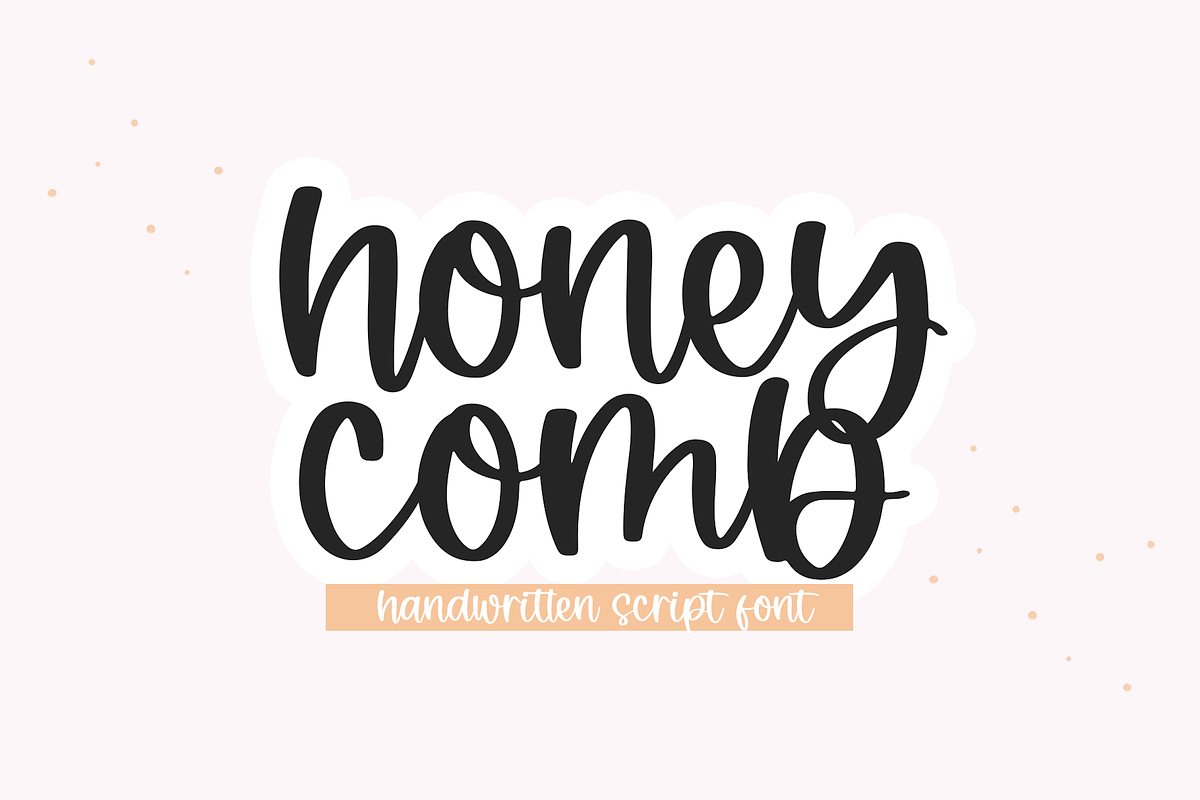
Honeycomb | Handwritten Script Font Free Download
Honeycomb | Handwritten Script Font Free Download is a sweet and stylish typeface with a natural handwritten flow. Its delicate curves and smooth connections make it perfect for wedding invitations, feminine branding, beauty packaging, Instagram quotes, and anything that calls for a personal, elegant touch.
The font is crafted to look authentic and fluid, giving your designs a charming and handcrafted feel. Honeycomb includes ligatures, stylistic alternates, multilingual support, and works flawlessly on both Mac and Windows platforms.